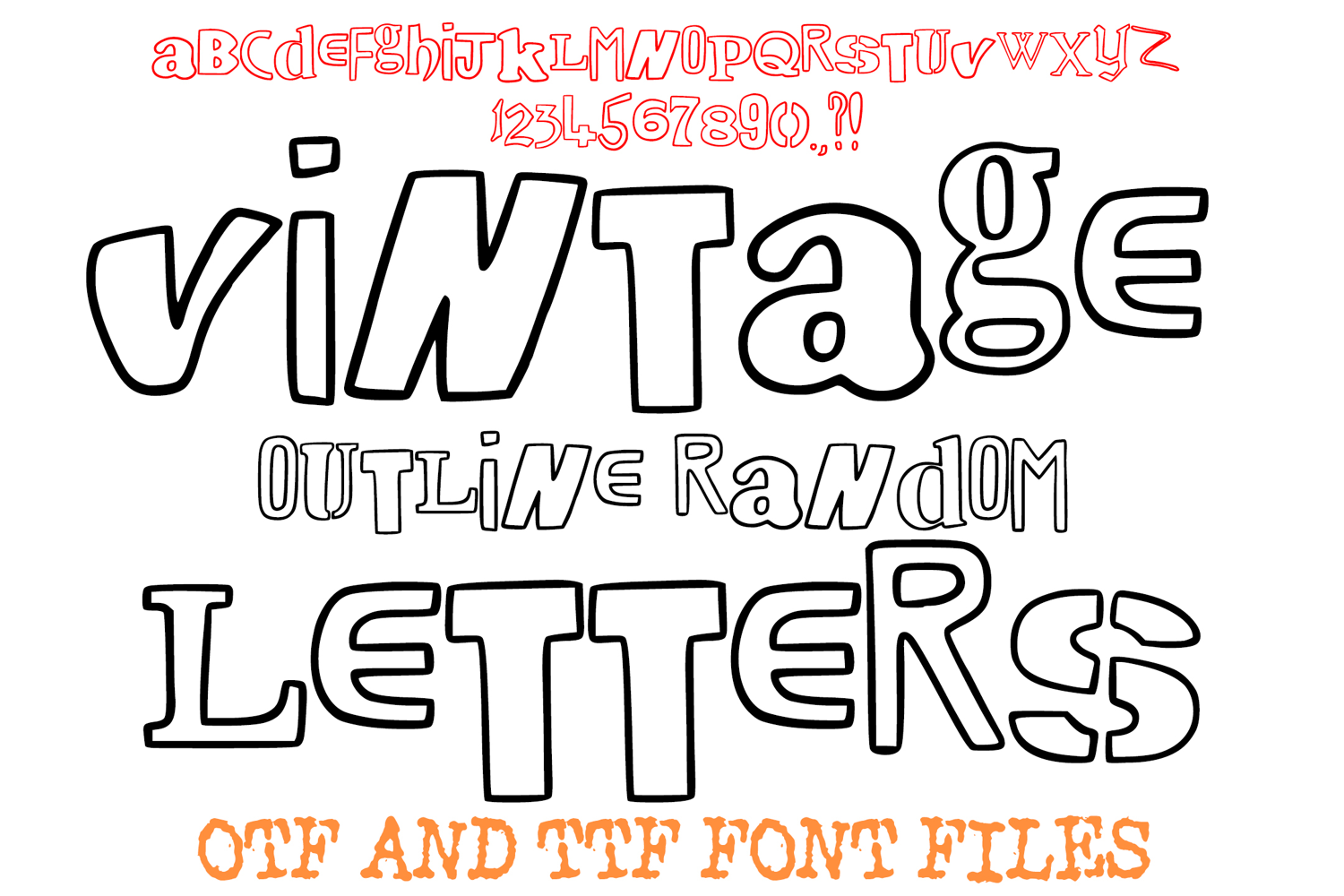
Vintage Outline Random Letters Alphabet Ransom Note ABC Font
Unleash your inner creativity with the Vintage Outline Random Letters Font, a truly unique and quirky typeface that combines a chunky, playful aesthetic with a cool, slightly retro stencil style. This font features a mix of heights, weights, and decorative serifs within its characters, giving it that wonderfully random, hand-stamped, or mismatched vintage look that stands out from the crowd.
Perfect for designs needing a bold, funky, or nostalgic vibe, this font is ideal for party invitations, poster headlines, vintage branding, t-shirt sublimation, and cutting machine crafts (Cricut/Silhouette).Bring a groovy, handcrafted edge to your next project with this eye-catching, one-of-a-kind display font!